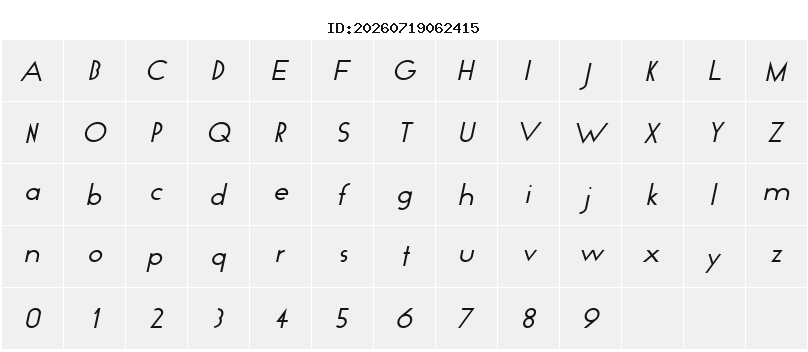
Compass Preview
• Font Name: Compass
• Font ID: CSC:Compass Italic
• Full Font Name: Compass Italic
• PostScript Name: Compass-Italic
About Compass.ttf
Compass.ttf is a modern, elegant sans-serif font designed for ultimate readability and visual harmony. Perfect for branding, headlines, web design, and print materials.